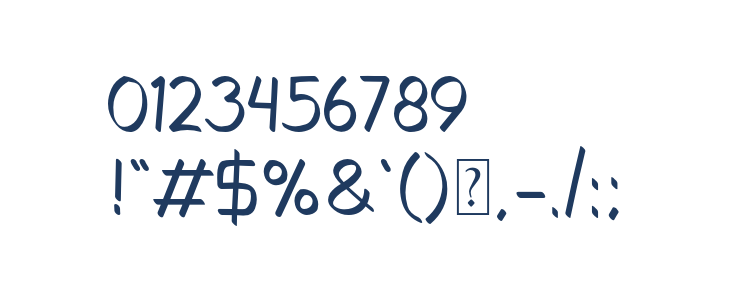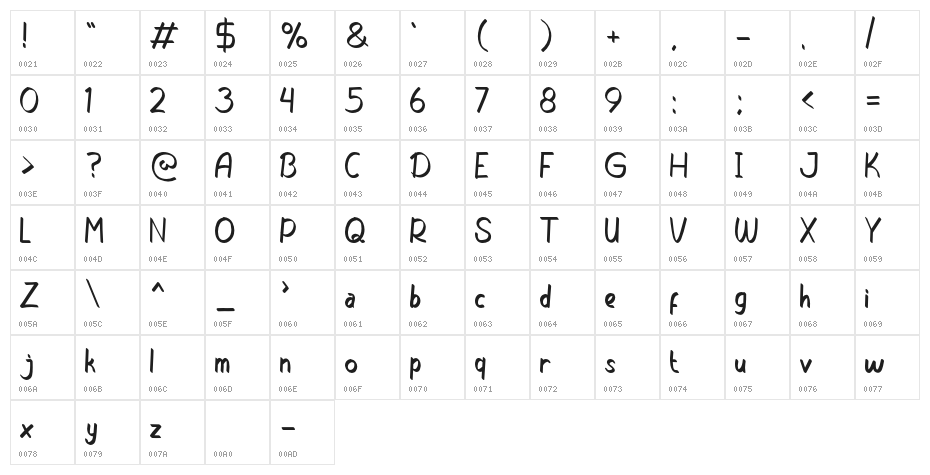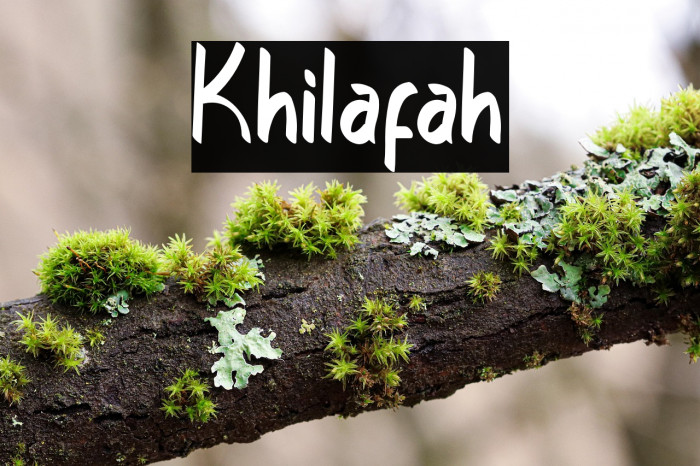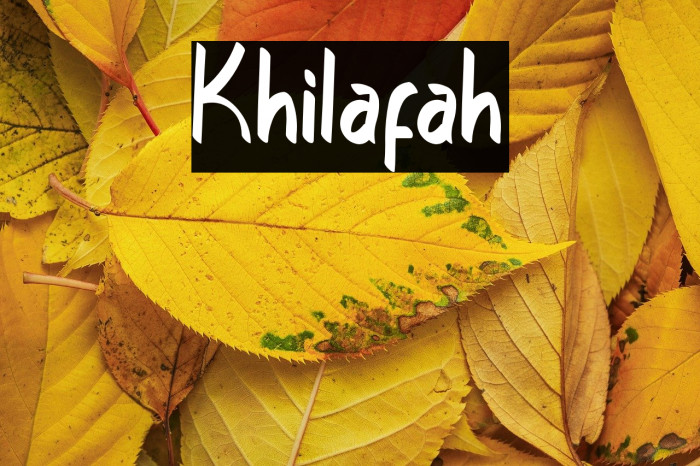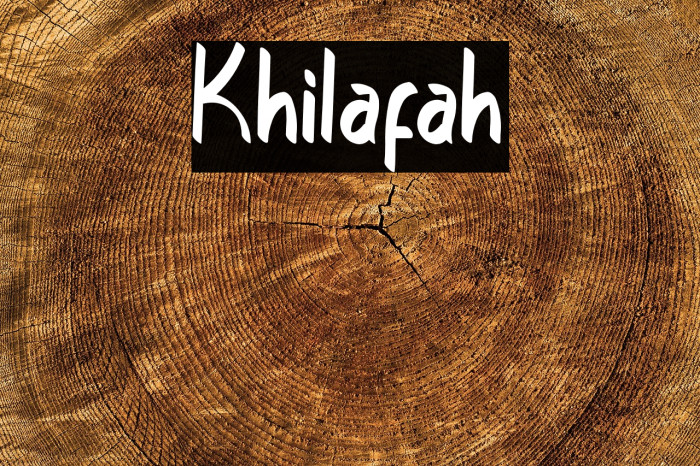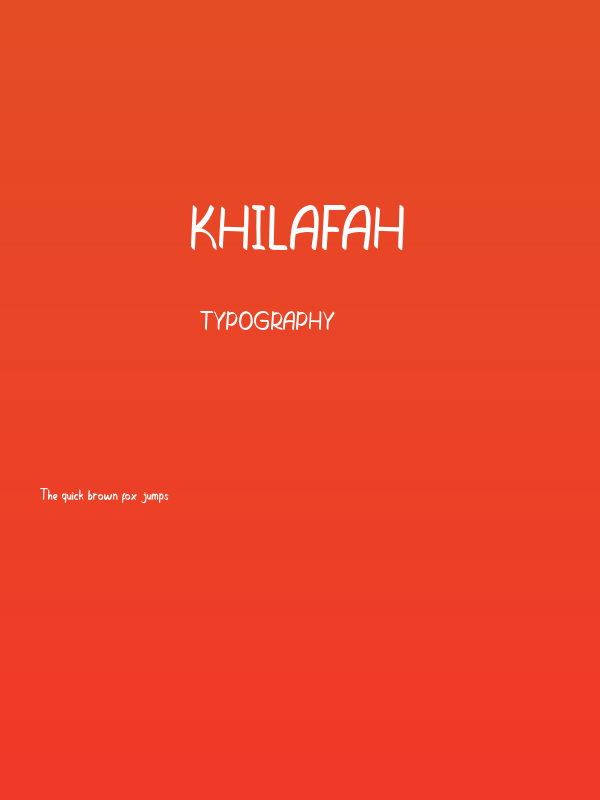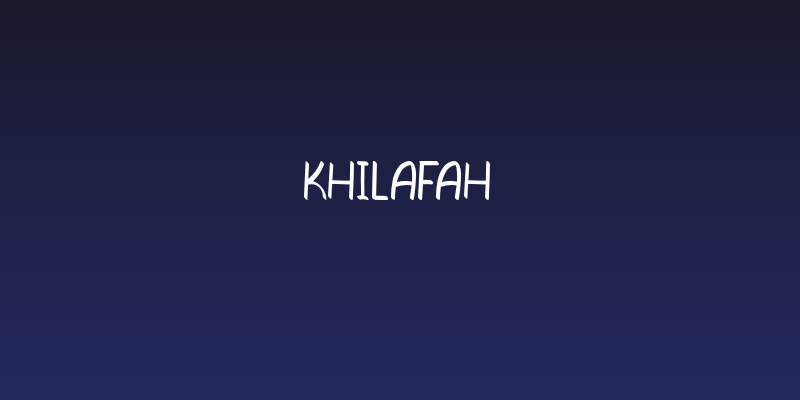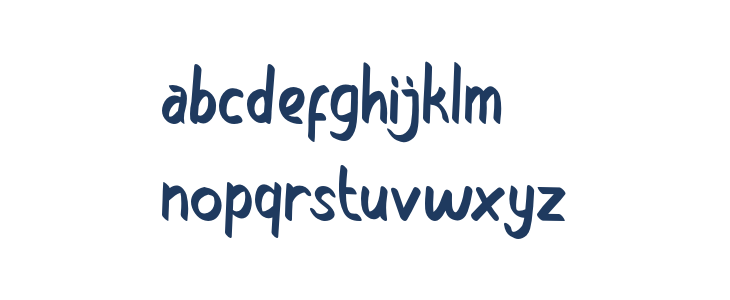
Khilafah Font
Khilafah Description
This font features a playful and informal style with a handwritten appearance. The characters are slightly irregular, giving it a casual and friendly vibe. The uppercase letters are bold and rounded, while the lowercase letters maintain a consistent flow with a slight slant, enhancing the handwritten feel. Numbers and special characters are designed to match the overall style, ensuring a cohesive look across all text elements. The font's unique character shapes and varying stroke widths add to its charm, making it suitable for projects that require a personal touch.